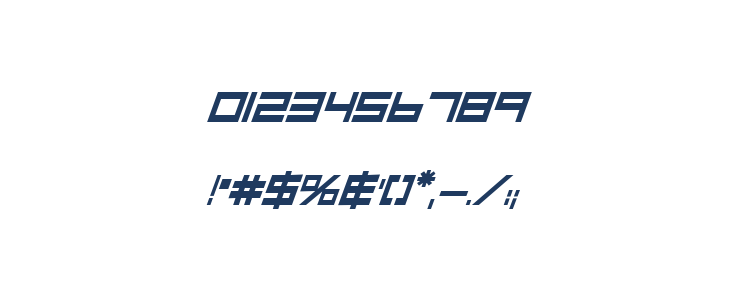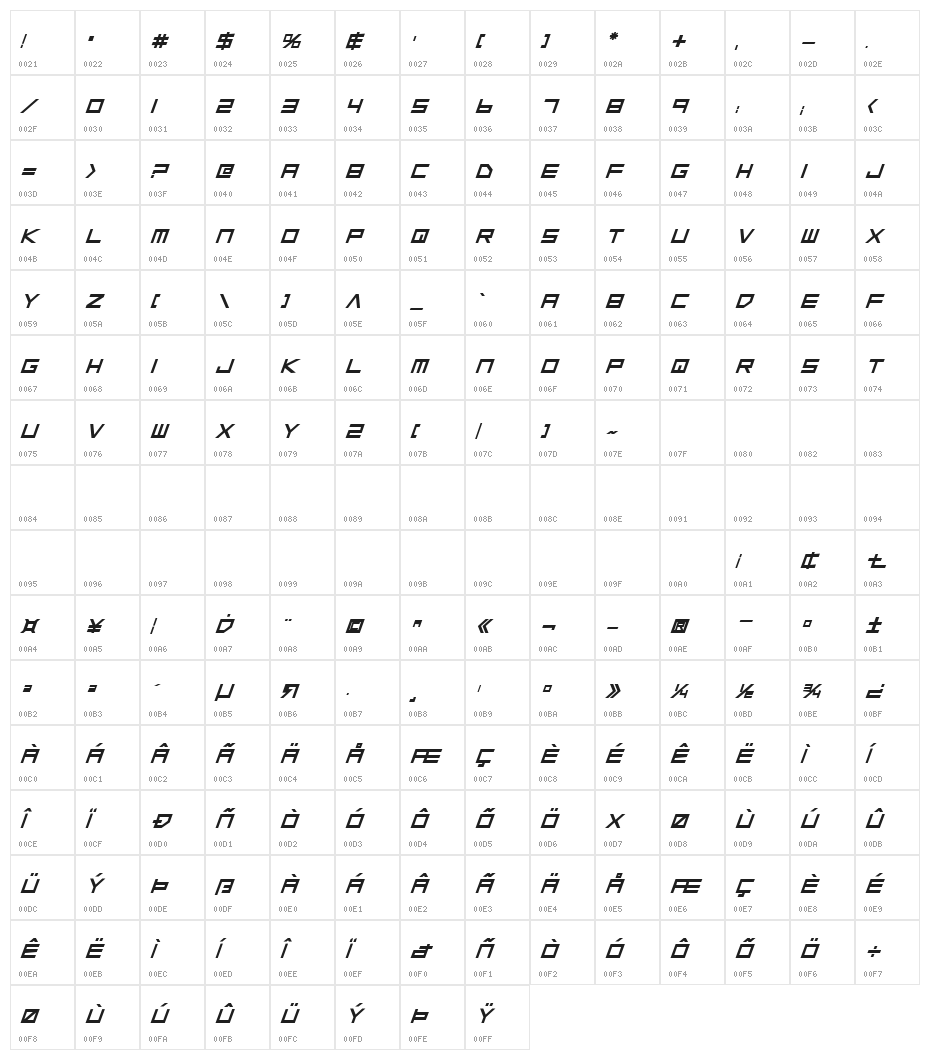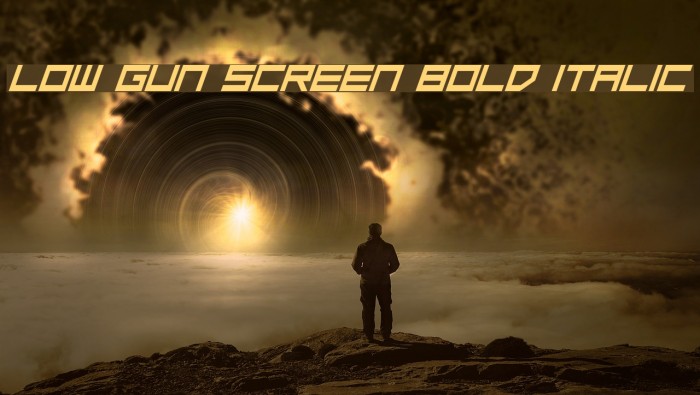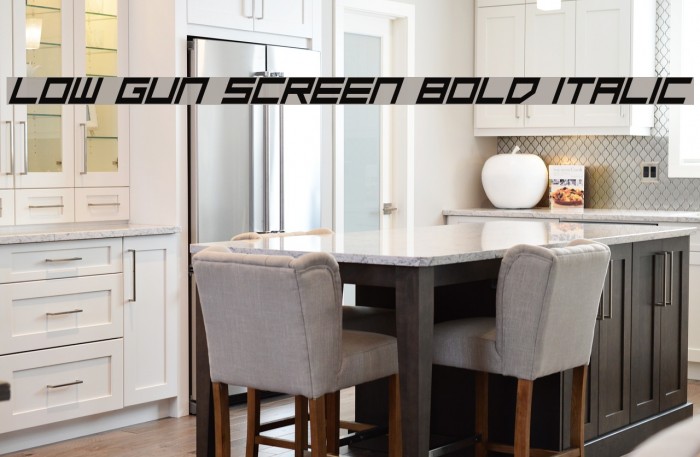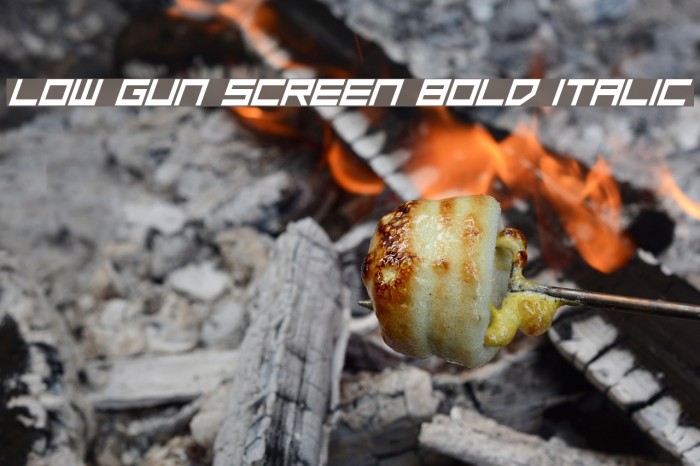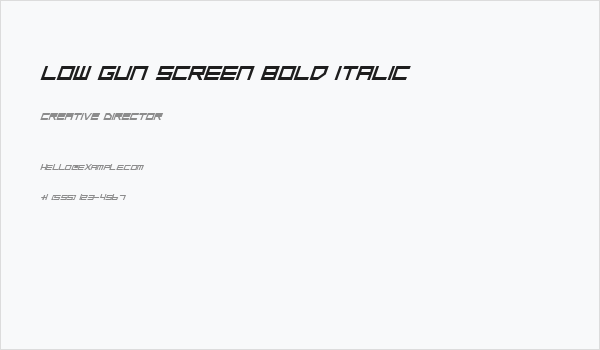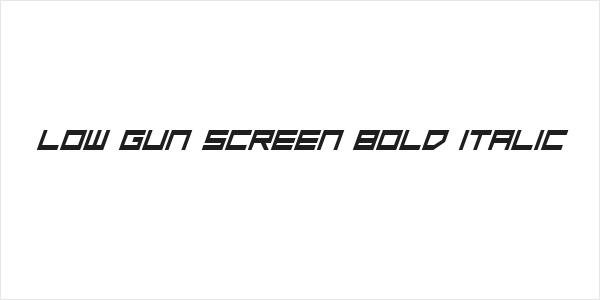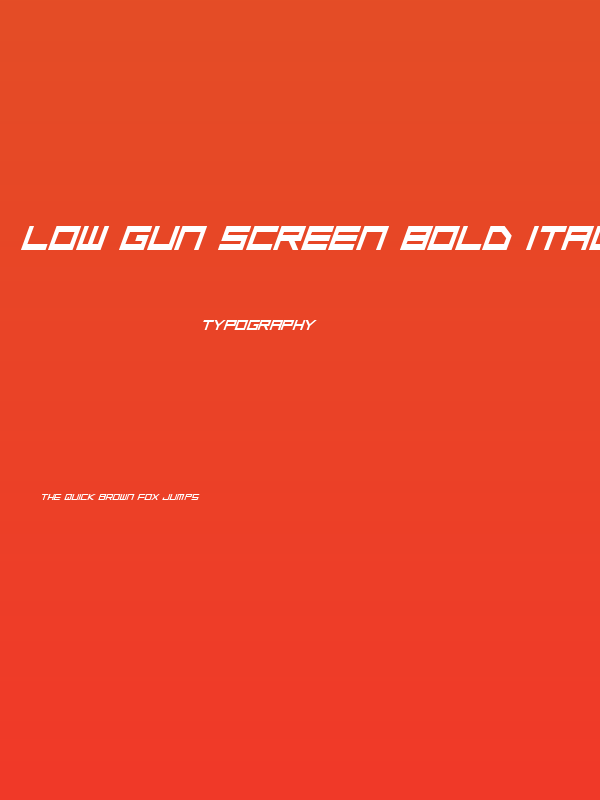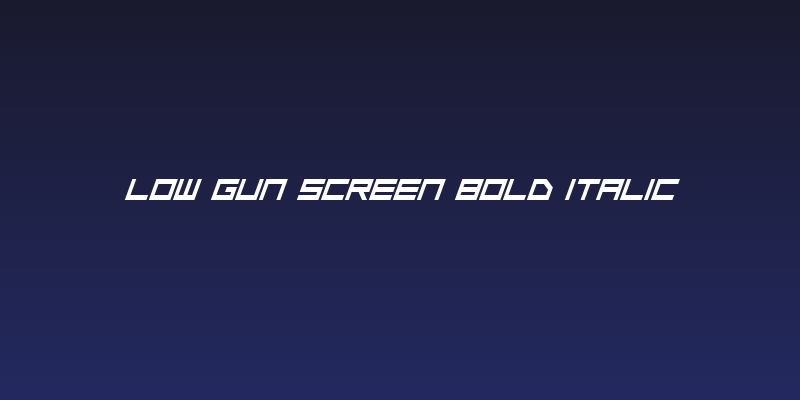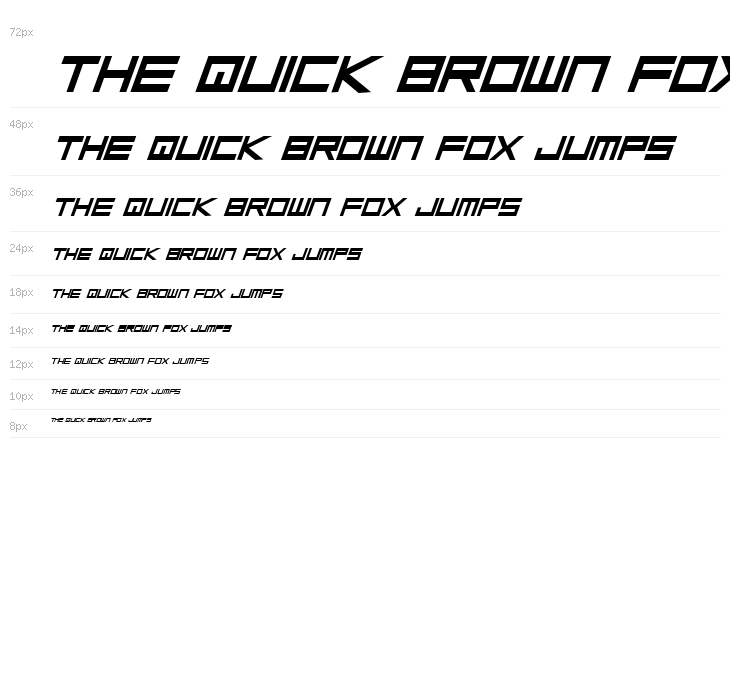
Low Gun Screen Bold Italic Font
Low Gun Screen Bold Italic Description
This font features a bold and italicized style with a futuristic and angular design. The characters are sharply cut with a distinct slant, giving it a dynamic and energetic appearance. The uppercase letters are particularly striking, with a geometric form that suggests movement and speed. The lowercase letters maintain the same angular aesthetic, ensuring consistency throughout the typeface. Numbers and special characters are designed to match the bold and italicized style, making them suitable for a variety of modern and tech-oriented applications.
| Proposed Projects | Ideal for technology branding, sci-fi movie posters, video game titles, and modern advertising campaigns. |